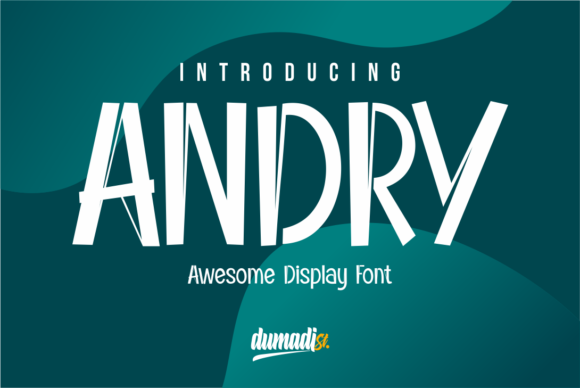
Introducing Andry Font, the epitome of typographic artistry that captures the allure of simplicity and exudes a relaxed charm. This display font, meticulously crafted by the design maestro DUMADI, transcends the boundaries of ordinary typefaces, captivating audiences with its captivating presence.
With its elegant curves and effortless flow, Andry Font possesses an inherent versatility that seamlessly adapts to a myriad of creative endeavors. Whether gracing the digital realm of websites, adorning the printed pages of brochures and magazines, or animating motion graphics with its dynamic presence, Andry Font commands attention and leaves an indelible mark.
Its understated beauty belies a depth of character, inviting designers and artists to explore the boundless possibilities it holds. Whether seeking to convey a sense of warmth and approachability or inject a touch of sophistication, Andry Font effortlessly elevates any project, transforming it into a visual masterpiece.
Immerse yourself in the world of Andry Font, where simplicity reigns supreme and creativity knows no bounds. Let your imagination soar as you discover the endless ways this remarkable font can enhance your designs, captivating audiences and leaving them spellbound.